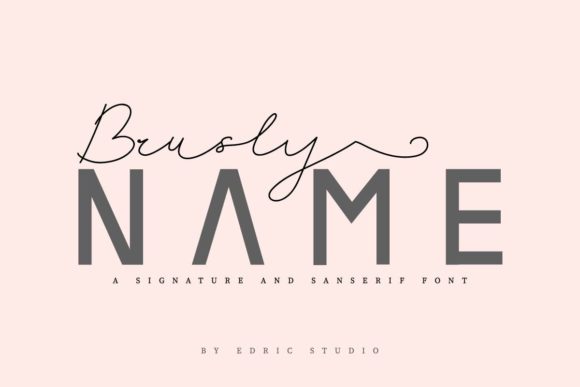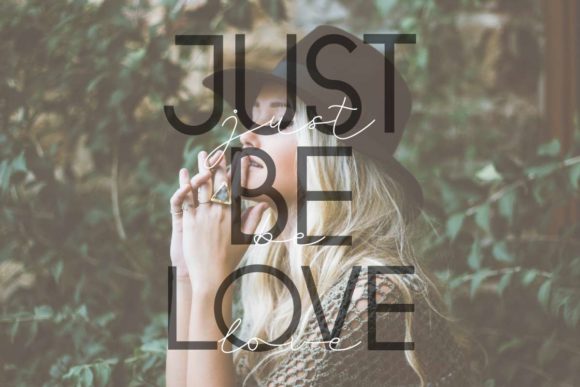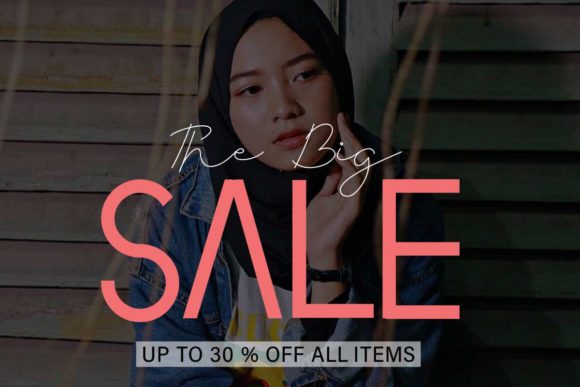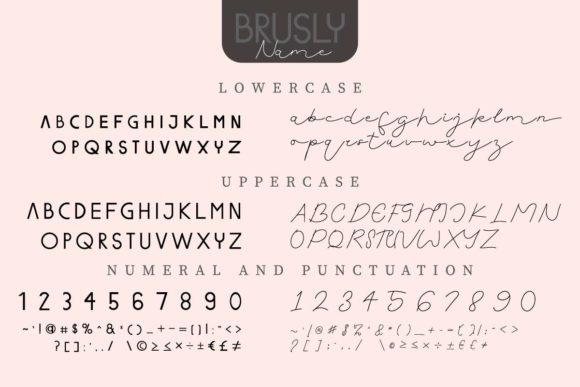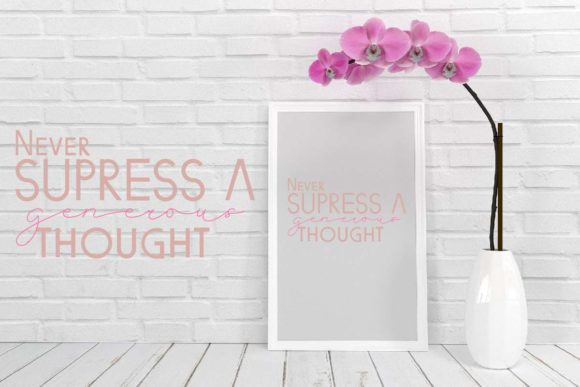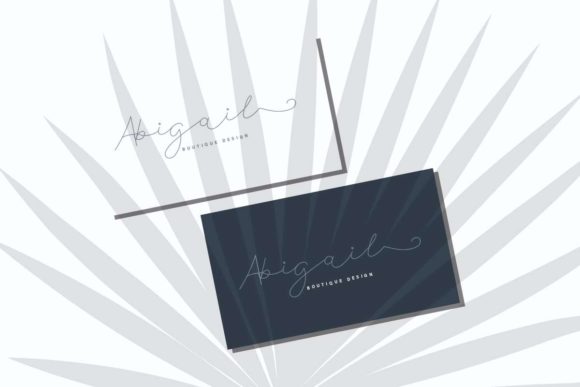
Unleash Your Creativity with Brusly Name Font: A Spectacular Duo Font
Are you a designer, crafty enthusiast, or simply someone who loves to dabble in creative projects? Look no further! Introducing the Brusly Name Font, a game-changing duo font that combines the sleekness of sans serif and the elegance of script fonts. This incredible font is about to revolutionize the way you approach your designs, taking them to new heights and making them truly unforgettable.
The Versatility of Brusly Name Font
One of the standout features of the Brusly Name Font is its incredible versatility. Whether you’re working on a modern and minimalist project or something more elaborate and ornate, this font adapts seamlessly. Its dual nature – comprising both a sans serif and a script font – allows you to experiment with a wide range of design concepts, ensuring that your final product is always visually appealing and on point.
Elevate Your Designs
Brusly Name Font is not just any ordinary font; it’s a design powerhouse. The sans serif component brings a clean, contemporary feel to your projects, perfect for headings, titles, and any text that needs to stand out without appearing too over-the-top. On the other hand, the script font adds a touch of sophistication and elegance, ideal for adding a personal touch to your designs or creating a memorable brand identity.
When used together, these two fonts create a stunning visual contrast that captures attention and keeps it. Imagine pairing bold, sans serif headings with elegant, flowing script text – the result is nothing short of spectacular. This dynamic duo breathes new life into your creative ideas, transforming them from ordinary to extraordinary.
The applications for Brusly Name Font are endless. Here are just a few ideas to get you started:
- Branding and Logos: Create a lasting impression with a unique logo that combines the strength of sans serif and the charm of script fonts.
- Invitations and Stationery: Add a personal touch to your invitations, greeting cards, and stationery with the elegant script font, paired with clean sans serif for details.
- Web Design: Elevate your website’s aesthetic with a modern sans serif font for headings and a script font for highlights or quotes, ensuring a memorable user experience.
- Social Media Graphics: Stand out on social media platforms with eye-catching graphics that utilize the contrasting styles of Brusly Name Font.
- DIY Projects and Crafts: Whether you’re making personalized gifts or crafting decorative items, this font can add a professional and thoughtful touch to your creations.